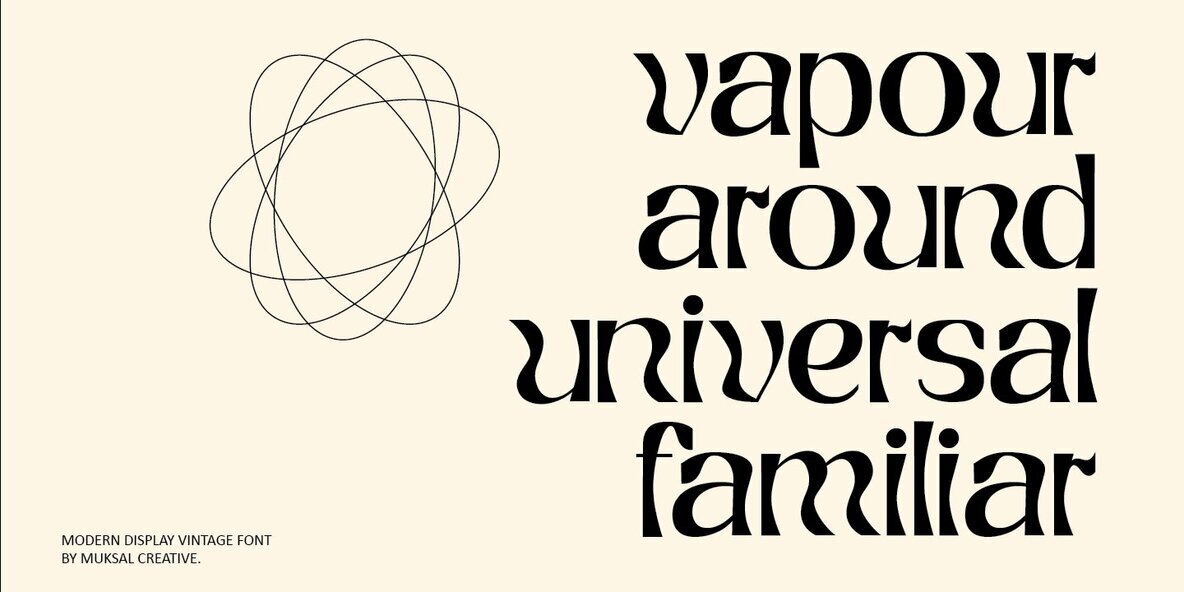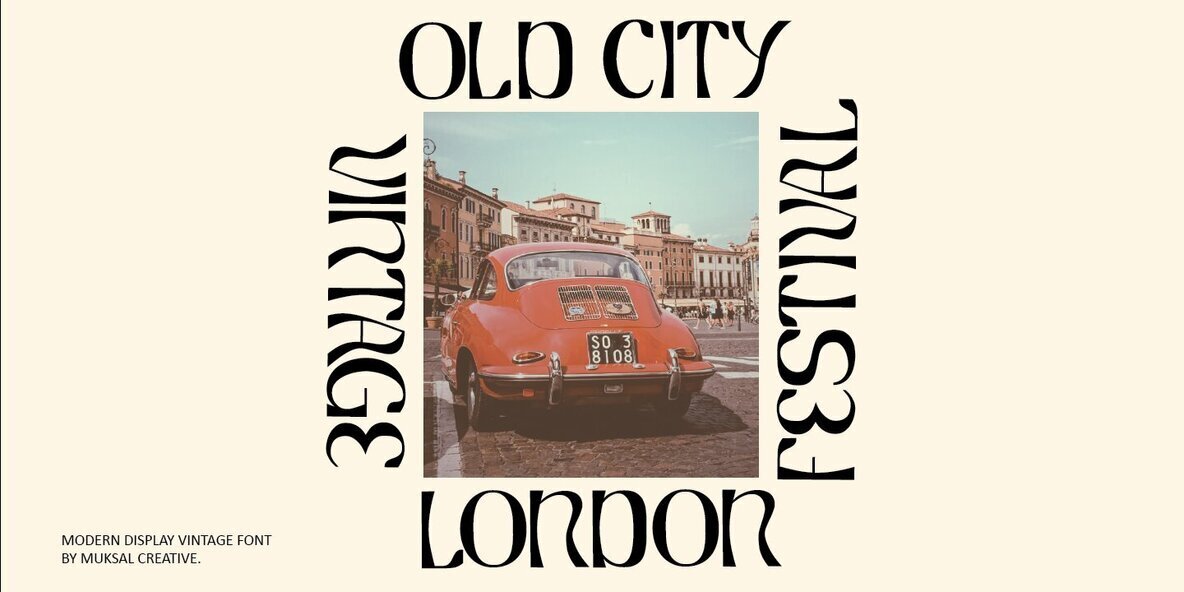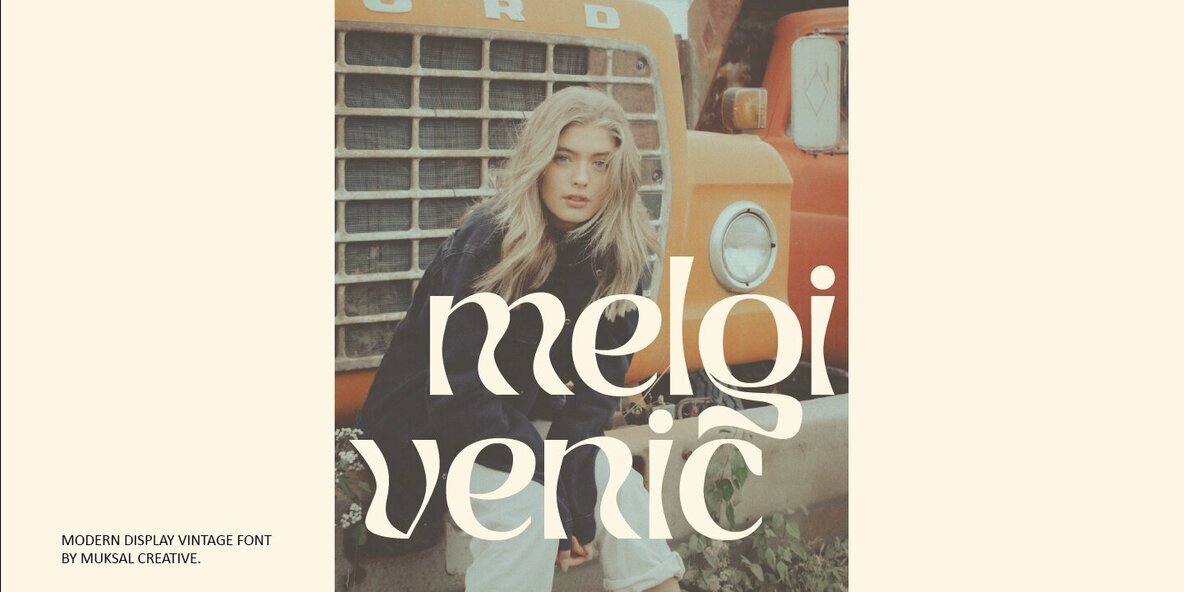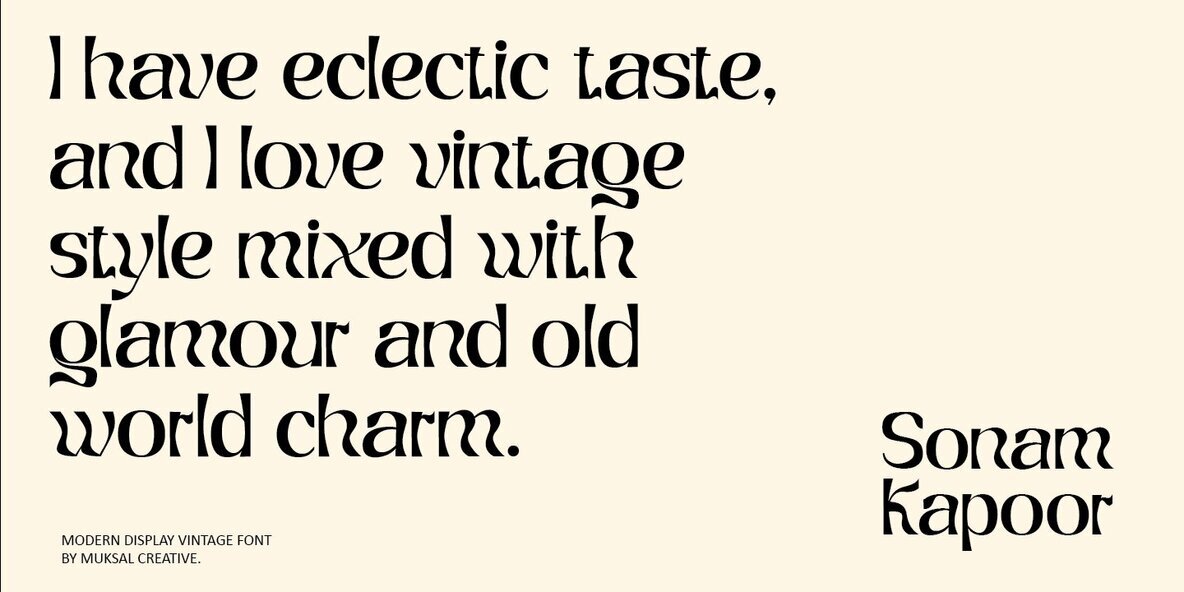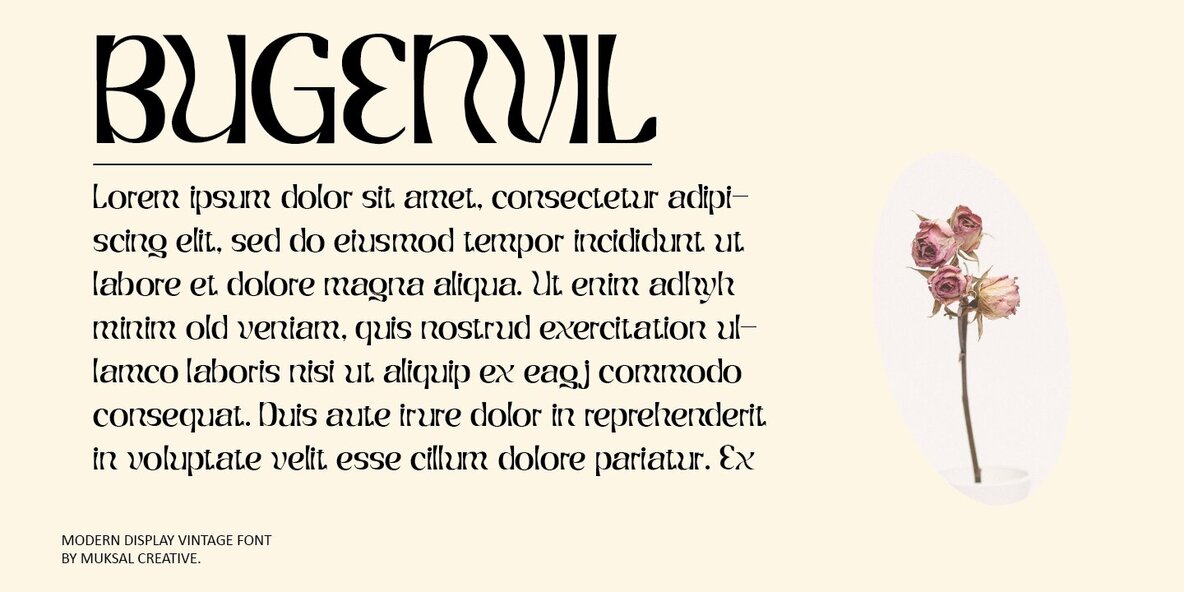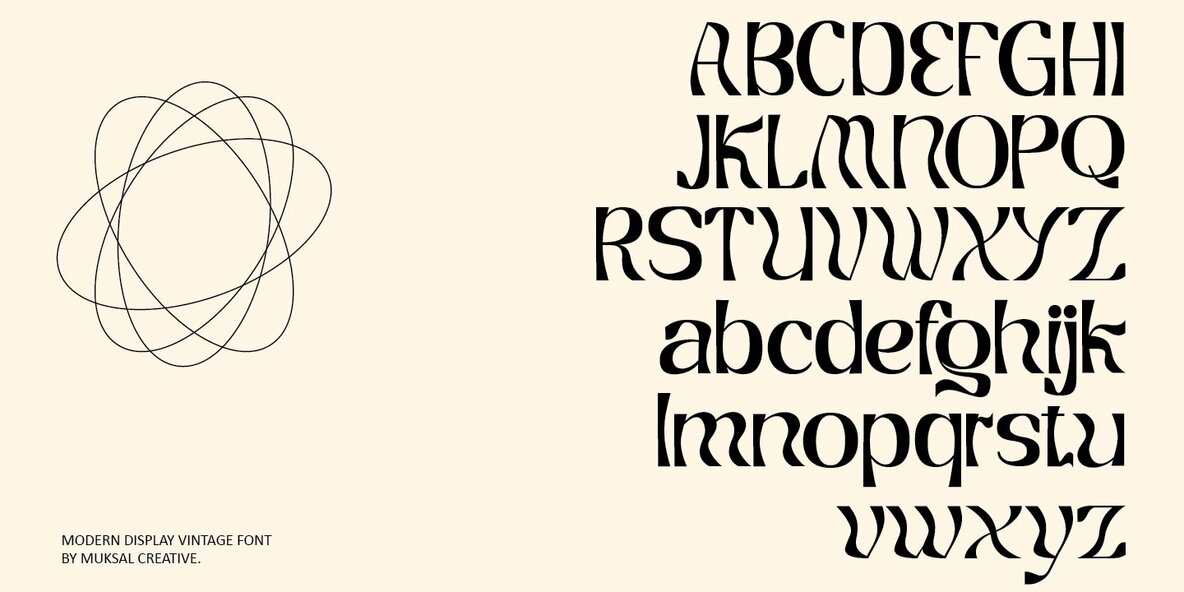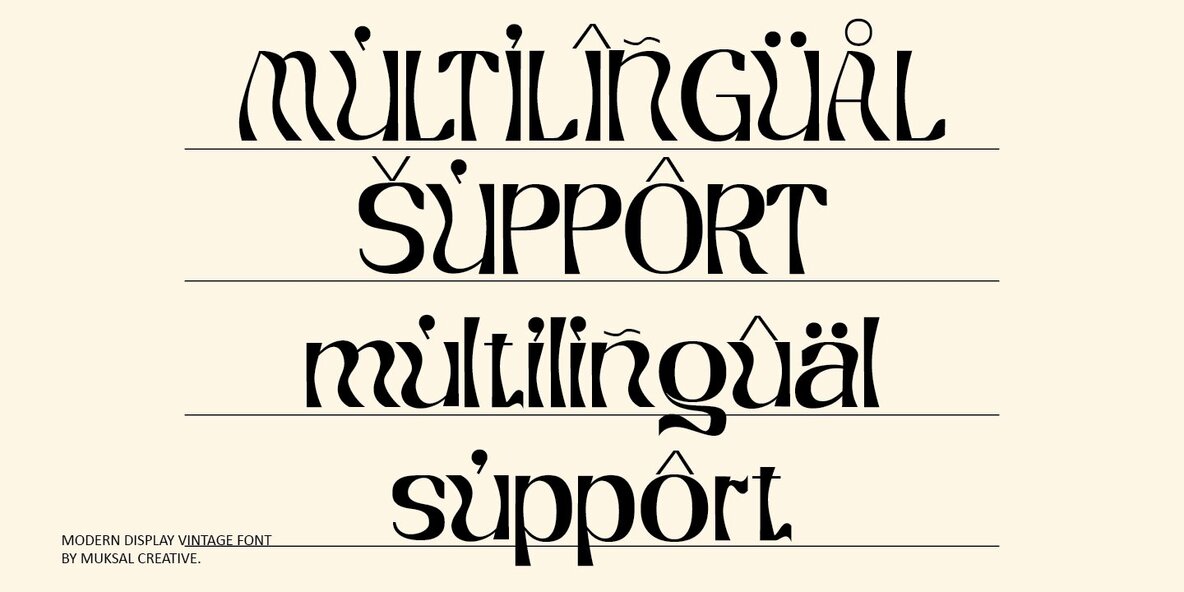
Unknow Font
Unknow Regular
Unknow is a modern display typeface that exudes a vintage charm, brought to life by Muksal Creative. Its distinctive design, enriched with special glyphs and ornamental elements, adds sophistication to a wide array of projects. Whether you're crafting editorial layouts, designing logos, or creating product packaging, Unknow provides the flexibility to be impressive in both large and small text sizes. This font is an excellent choice for magazine headers and offers the perfect touch as a stylish text overlay in various visual contexts.Unknow: A Vintage Display Font Offering Timeless Elegance